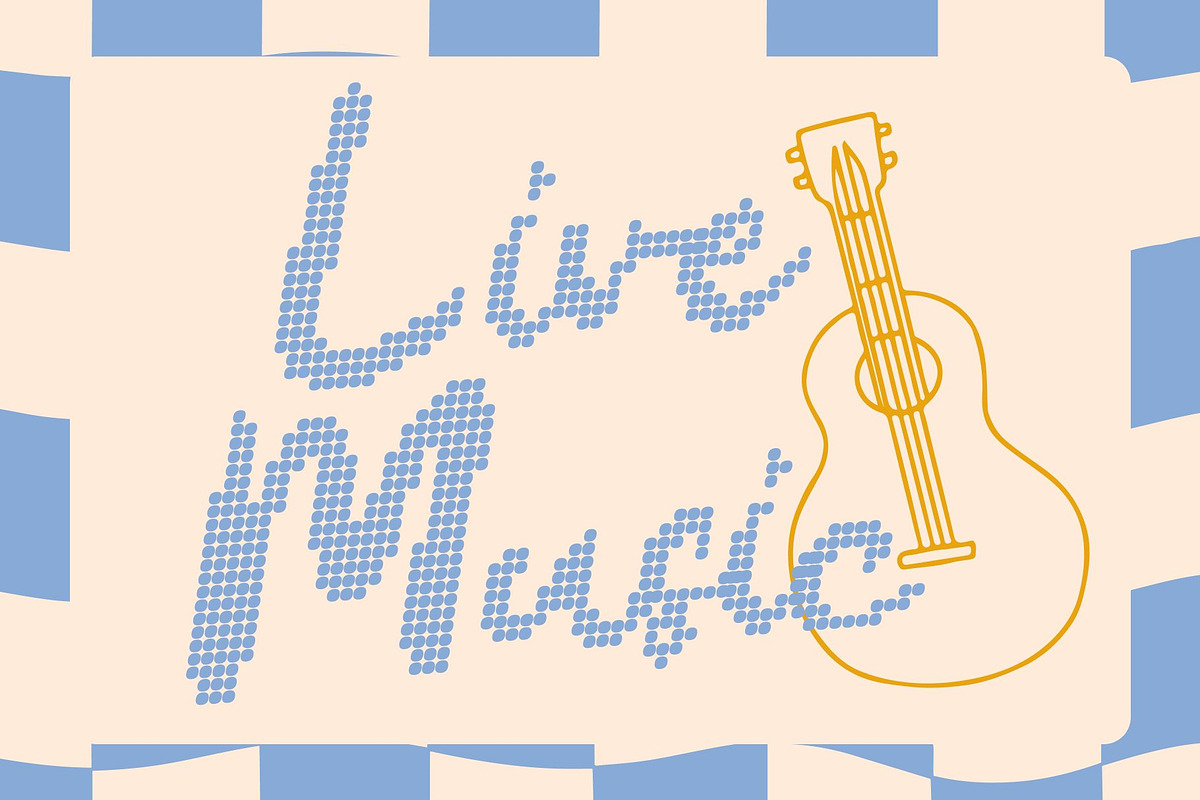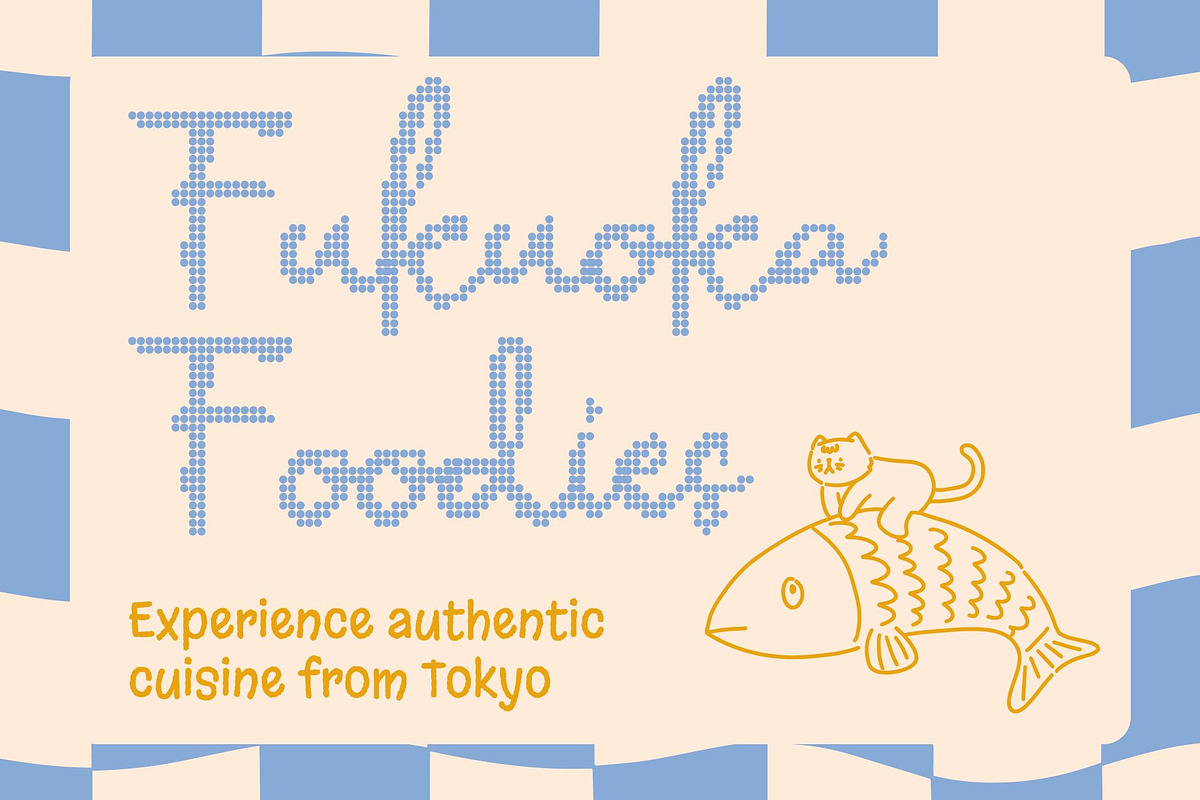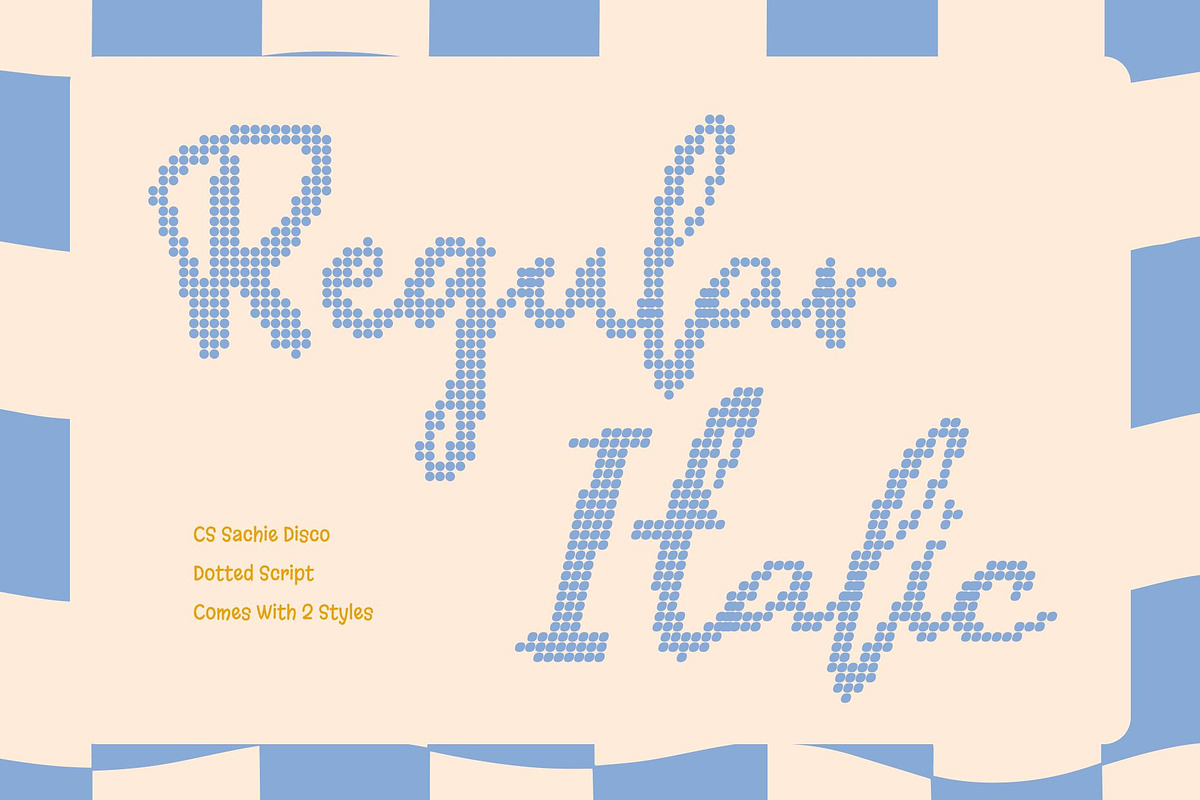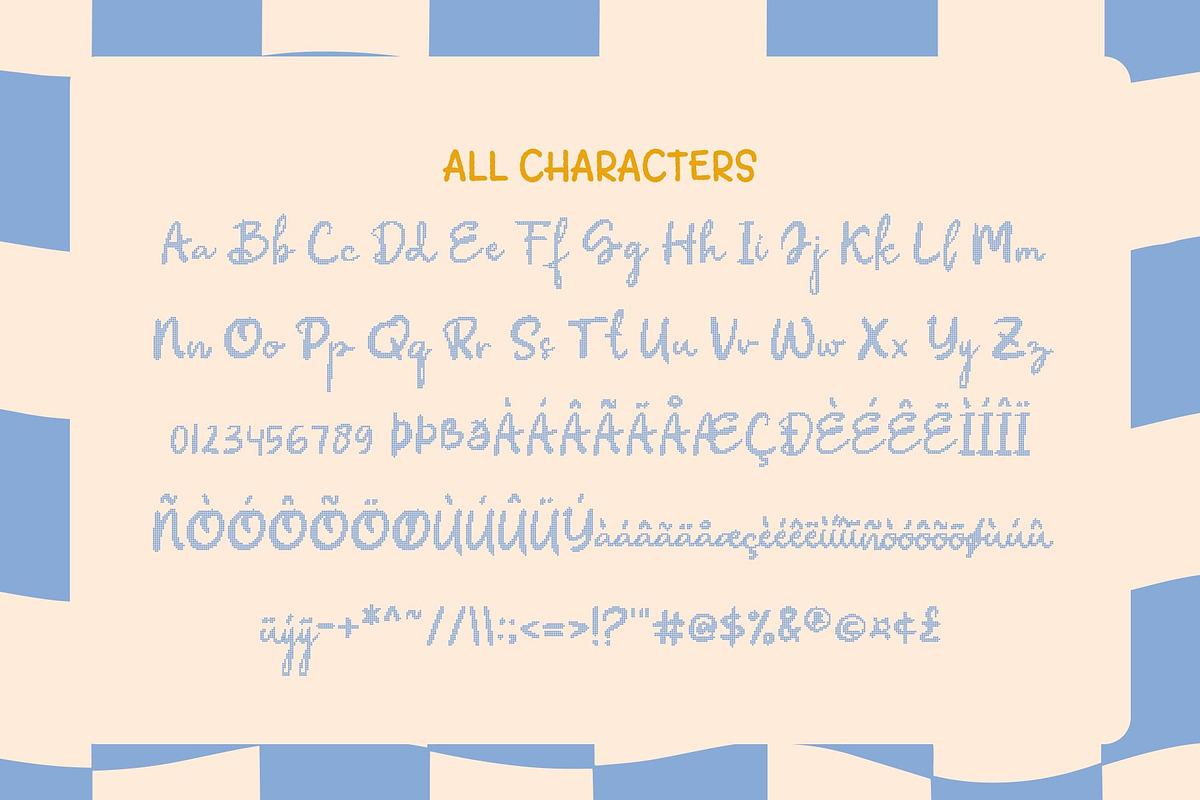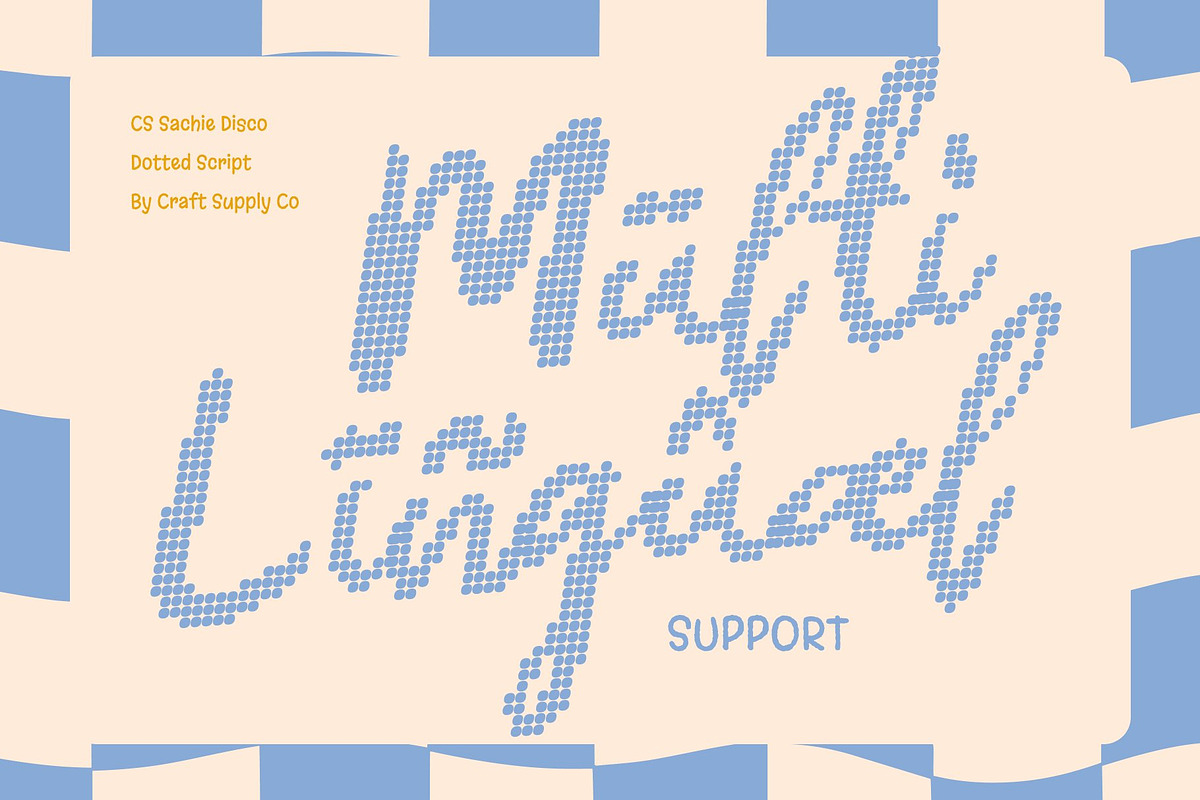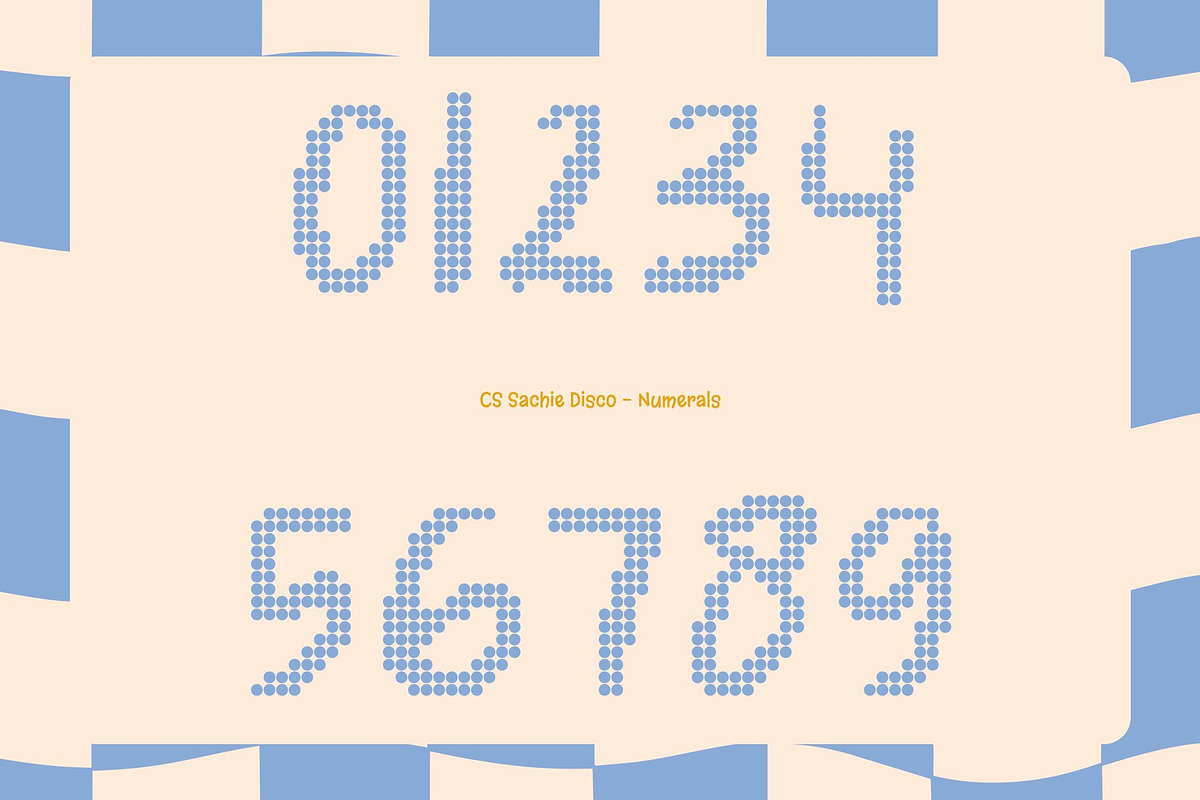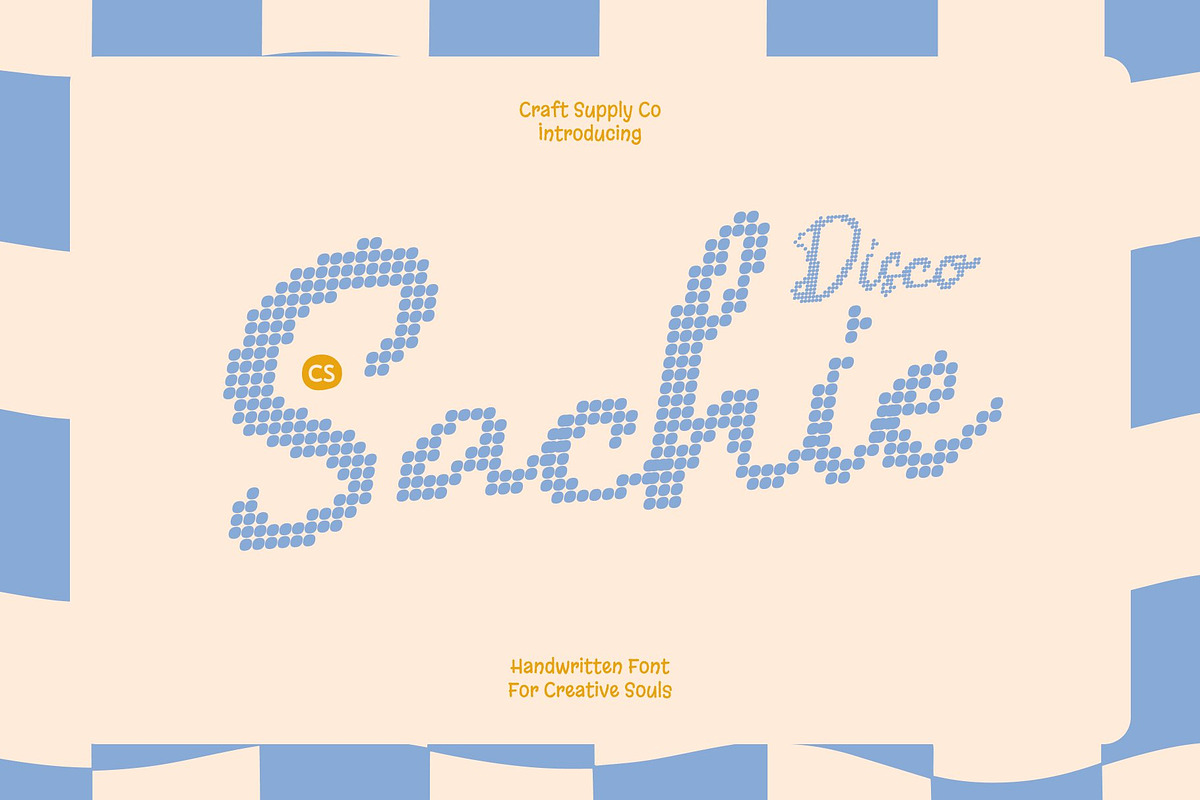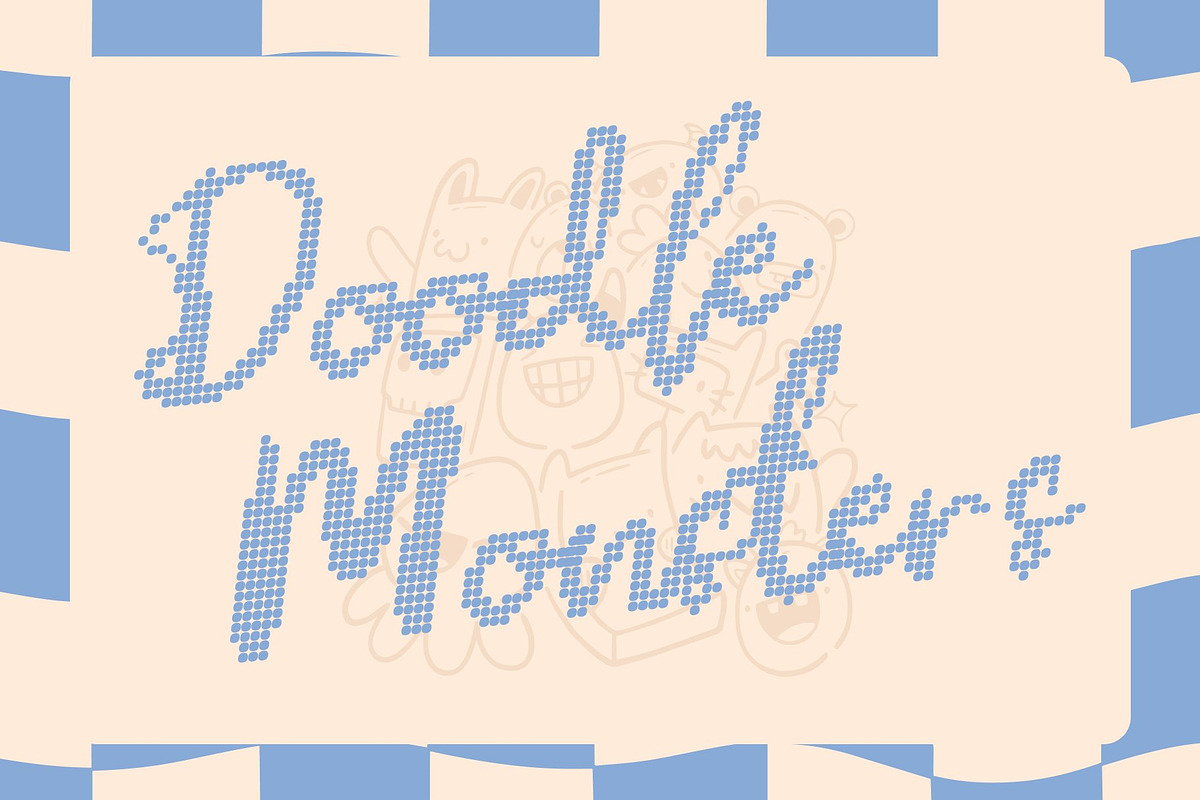
CS Sachie Disco
CS Sachie Disco – Chic Dot Script with Sparkling Elegance
Delicate Script with Disco Sparkle This font transforms the elegant script style into a radiant dotted display font inspired by the shimmering lights and festive atmosphere of the disco era. Each flowing letter is carefully formed from small circular dots, creating a sparkling texture that enhances the font’s delicacy while introducing a lively, celebratory character. The dotted construction keeps the graceful essence of the script while adding a playful visual rhythm.
Flowing Letterforms with Rhythmic Dot Patterns The refined curves and smooth connections of the original script remain beautifully preserved. With the dotted structure, each stroke gains a glowing effect reminiscent of disco lights and illuminated dance floors. This rhythmic arrangement of dots amplifies the natural movement of the letters, making the typography feel both expressive and visually dynamic.
Creative Flourishes with Playful Disco Charm The signature creative flourishes become even more captivating in the disco style. Formed with rounded dots, these decorative elements feel lighter and more whimsical while maintaining their elegant purpose. The result is a harmonious balance between chic sophistication and cheerful disco energy.
Perfect for Fashion, Invitations, and Creative Branding This font shines in wedding invitations, fashion branding, packaging, editorial layouts, social media graphics, and event posters. Its dotted elegance adds glamour and personality, making designs feel festive, stylish, and memorable.
CS Sachie Disco Regular
CS Sachie Disco Italic